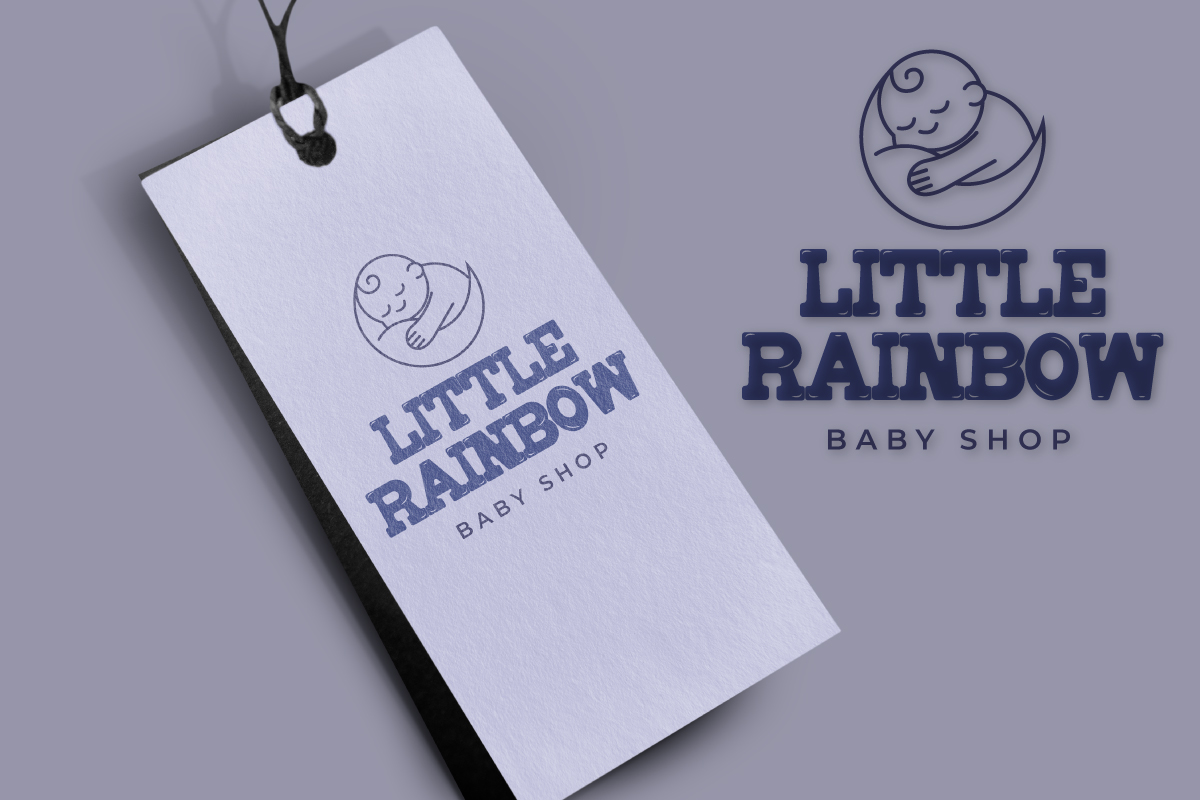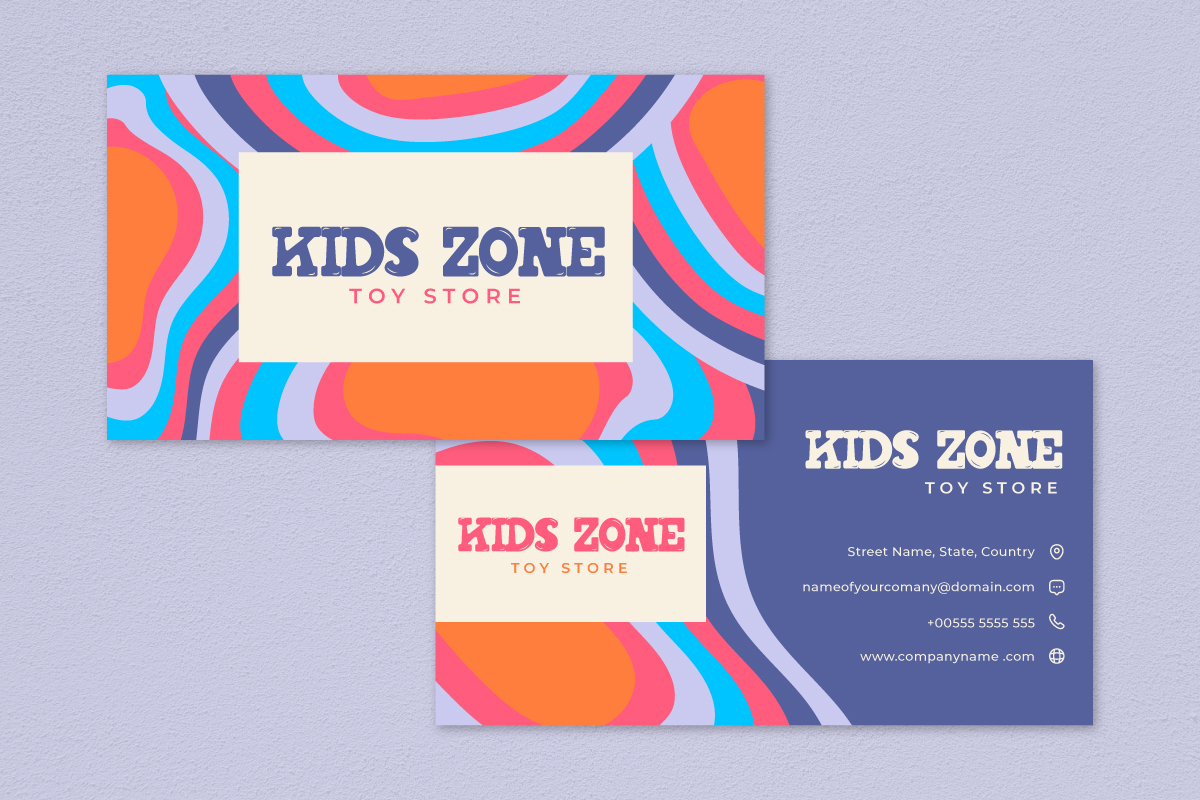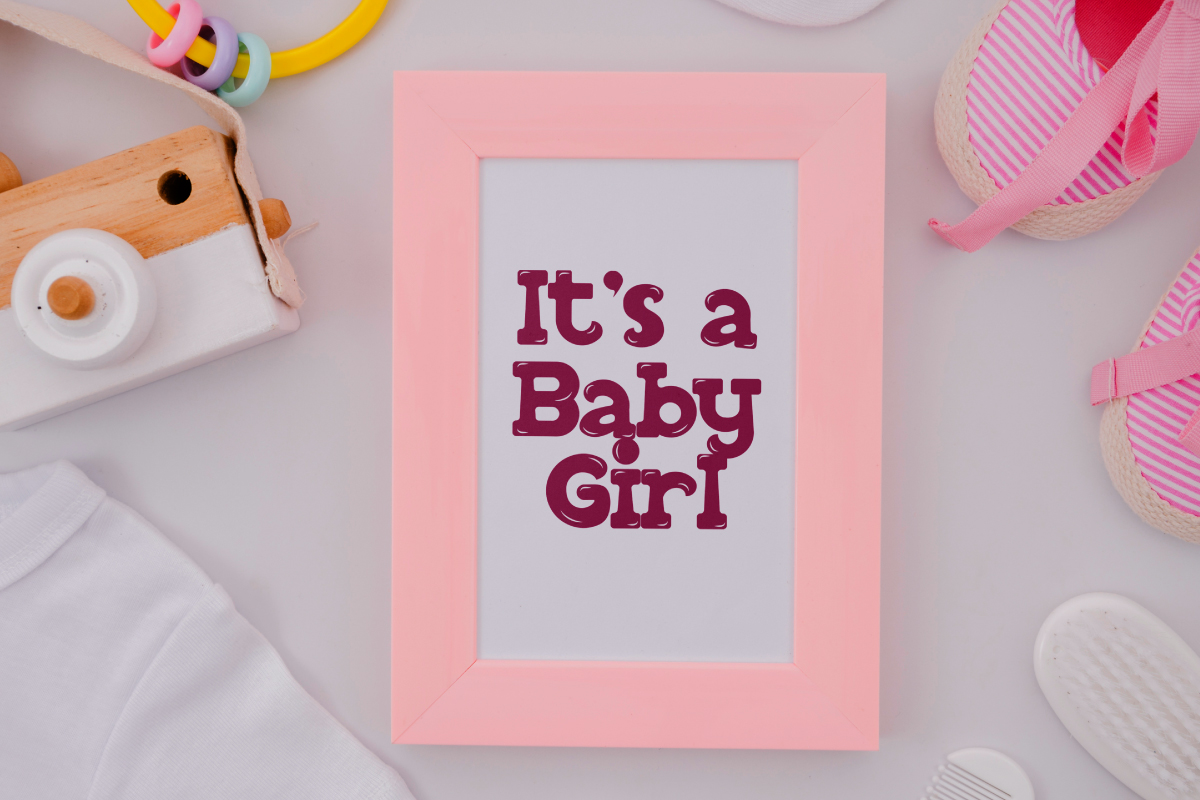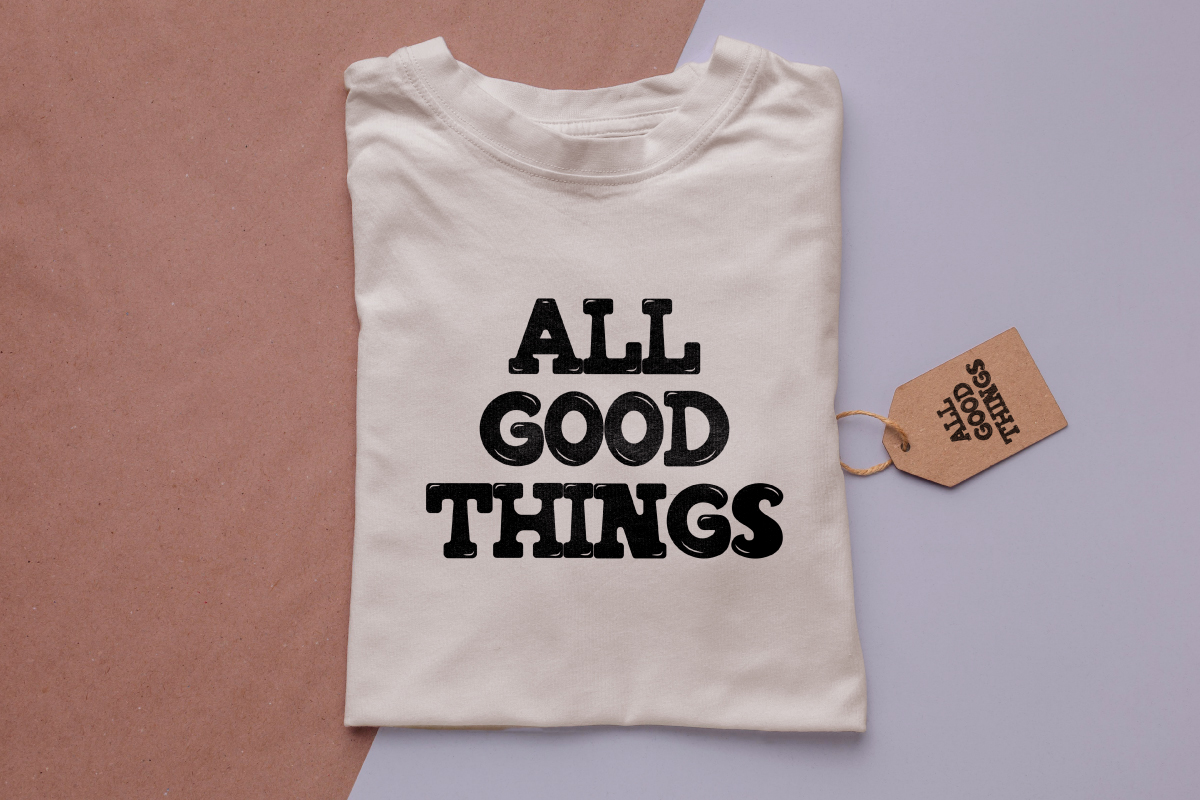
Little Groovy Font
Little Groovy Display Font
It’s a fun sans serif display font with shinny cartoon style, this font is great for your next creative projects such as cartoon project, poster, quotes, album cover, logo, business card, and many other design project. Little Groovy Font is a modern display font that is readable, smart and stylish. It is defined by smooth curves and is perfect for fashion branding or editorial designs. Add it confidently to your projects, and you will love the results.